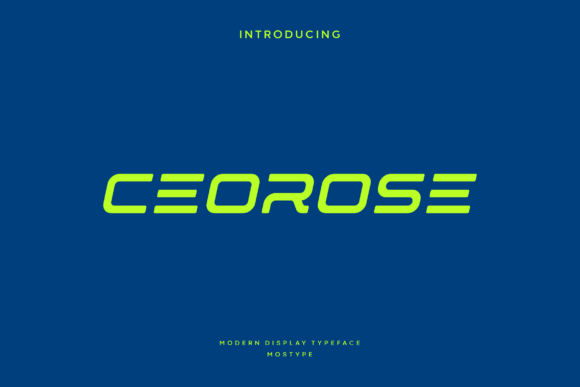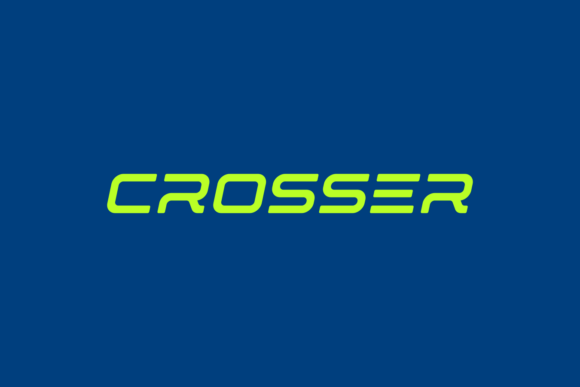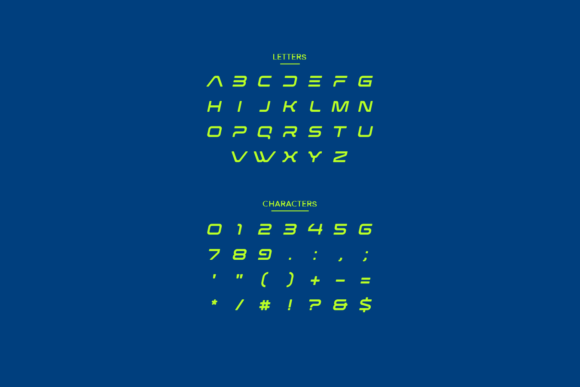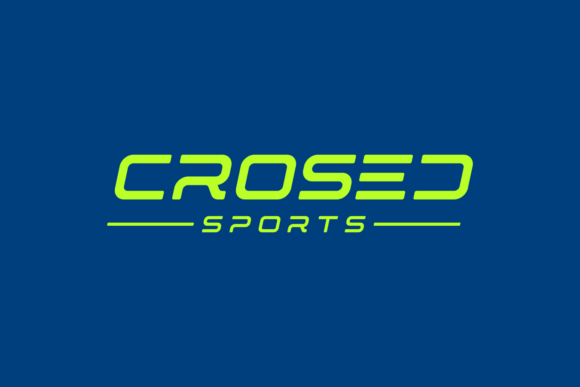
Ceorose Font: A Modern Display Font for Tech Branding & Sci-Fi Posters
About the Ceorose Font
Explore the possibilities with Ceorose Font, a font that offers both beauty and functionality. **Ceorose** that feels beautiful classy, elegant, and modern. This font is perfectly suited for a wide variety of projects, such as signature, stationery, logo, wedding, typography quotes, magazine or book covers, website headers, clothing, branding, packaging design, and more. Also, fashion-related branding or editorial design displays both masculine and feminine qualities.
Ceorose Font Usage Examples
Ceorose Font Example